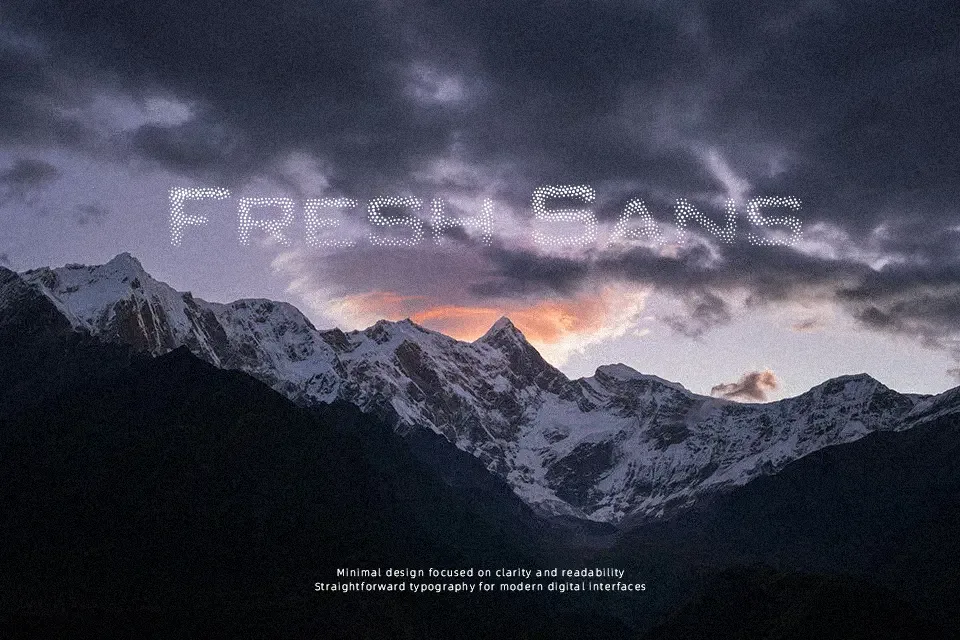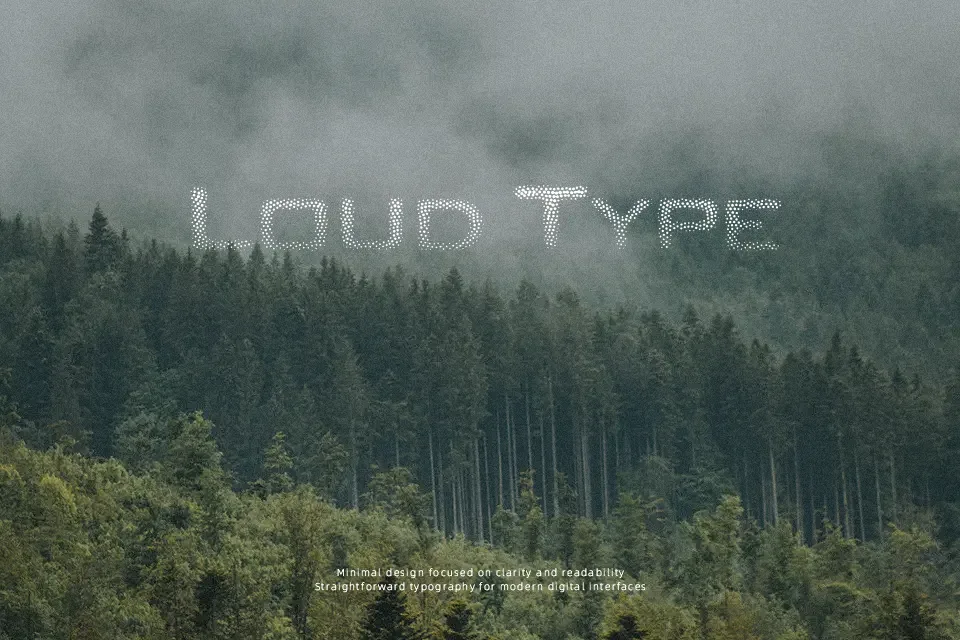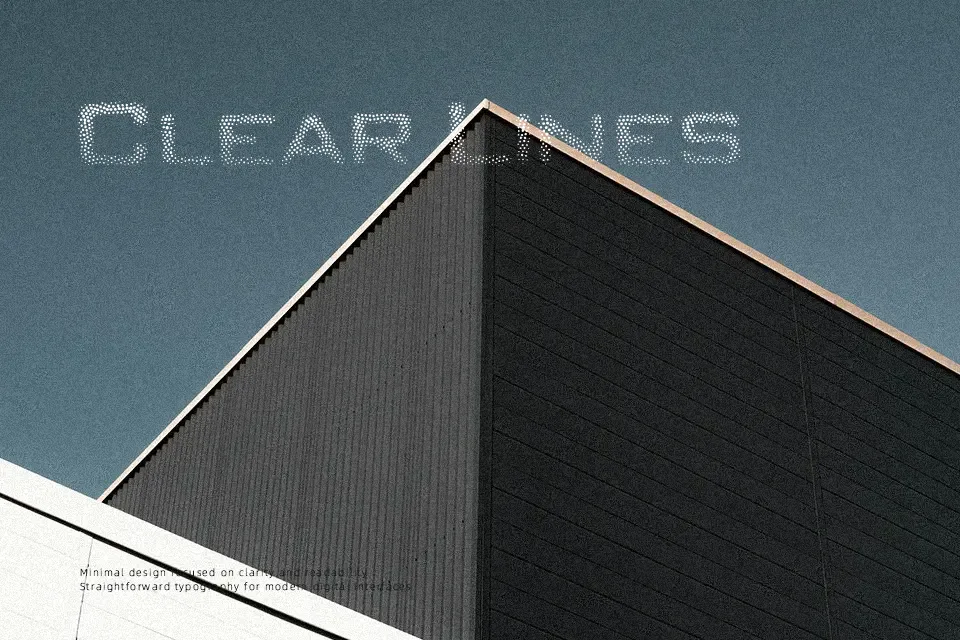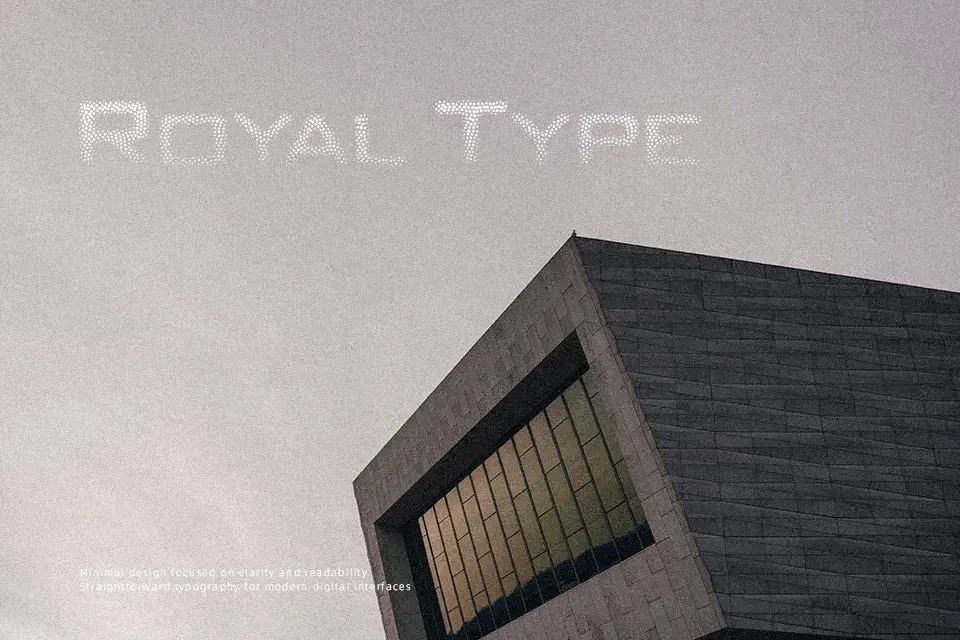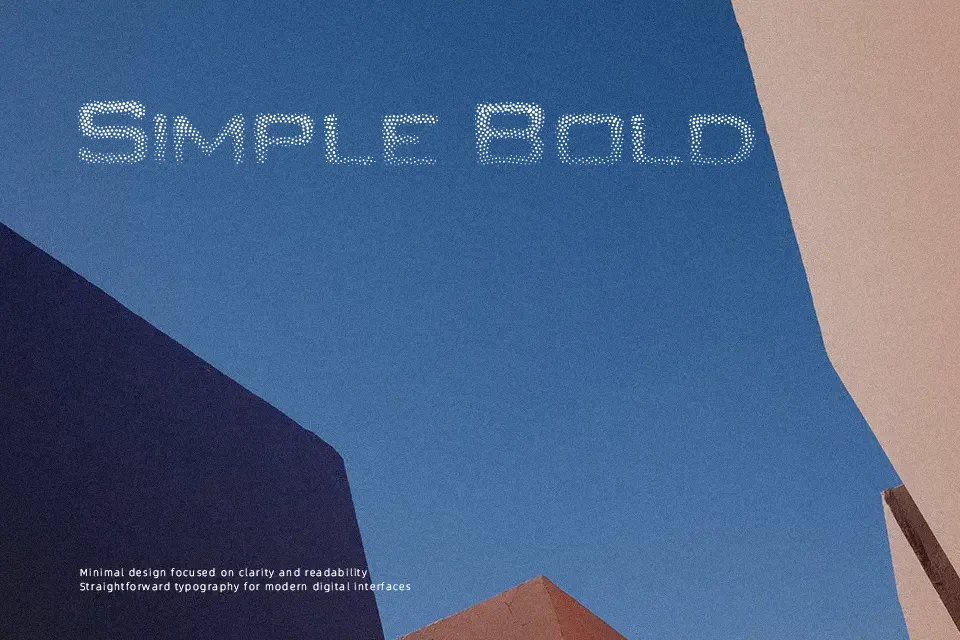
Unity Dances Font
Unity Dances Font introduces an expressive display structure characterized by stippled pointillist textures filling heavy letter contours. Across uppercase and lowercase glyphs, stable proportions and balanced character spacing help preserve silhouette recognition despite the high internal degradation of the strokes. The dense grain pattern adds organic grit that shines in large-format headline settings and merchandise graphics. However, the intricate dot clusters degrade in clarity at smaller sizes, making extended reading difficult. This typeface performs best when displayed at larger sizes where individual textural elements remain crisp rather than blurring into gray noise.
Best For: music festival posters,apparel graphics,band merchandise,album covers
Not Ideal For: long paragraph text,small interface labels,mobile app body copy,dense editorial layouts
Perfect for branding, headline, and music, with a creative and decorative style.